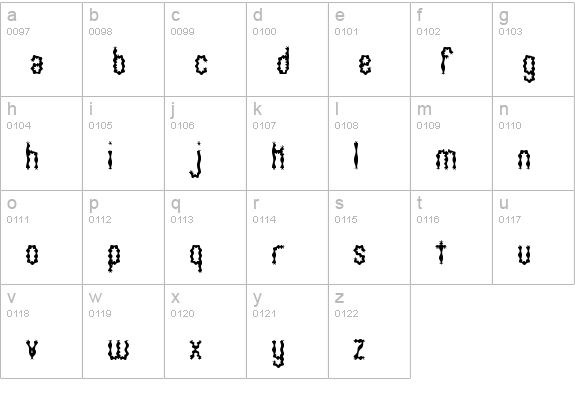
Wiggly Squiggly BRK Font Details
Introducing Wiggly Squiggly BRK, a delightfully whimsical font that will add a touch of playfulness to any project. With its charmingly curved and wiggly letterforms, this font captures the essence of fun and creativity. Wiggly Squiggly BRK is perfect for those looking to inject a sense of lightheartedness into their designs. Whether you're working on a children's book, a party invitation, or a logo for a vibrant brand, this font will bring your ideas to life with its energetic and dynamic appearance. One of the best things about Wiggly Squiggly BRK is that it is free! Yes, you read that right. This font is freely available to download at FontsMarket.com, making it accessible to designers and creatives of all levels. You can easily add this font to your collection and start using it in your projects without any cost. Not only is Wiggly Squiggly BRK free, but it also offers a wide range of characters and ligatures, allowing you to create unique and eye-catching designs. The font's versatility is further enhanced by its ability to be used in both uppercase and lowercase, providing even more creative possibilities. The playful nature of Wiggly Squiggly BRK is evident in its dynamic letterforms, which seem to dance across the page. Each character is carefully crafted to maintain a balance between legibility and exuberance, ensuring that your messages are conveyed effectively while still retaining a sense of fun. So why wait? Download Wiggly Squiggly BRK for free at FontsMarket.com and let your imagination run wild. Whether you're designing a poster, a website, or simply adding a touch of whimsy to your everyday communications, this font is sure to bring a smile to your face and captivate your audience. Embrace the wiggles and squiggles and let your creativity shine with Wiggly Squiggly BRK!